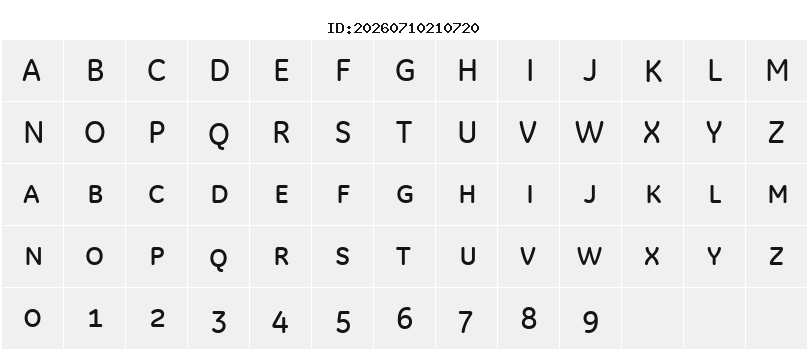
• Font Name: GE Inspira Pitch SC
• Manufacturer: Monotype Imaging Inc.
GE Inspira Pitch SC.ttf is a modern, elegant sans-serif font designed for ultimate readability and visual harmony. Perfect for branding, headlines, web design, and print materials.